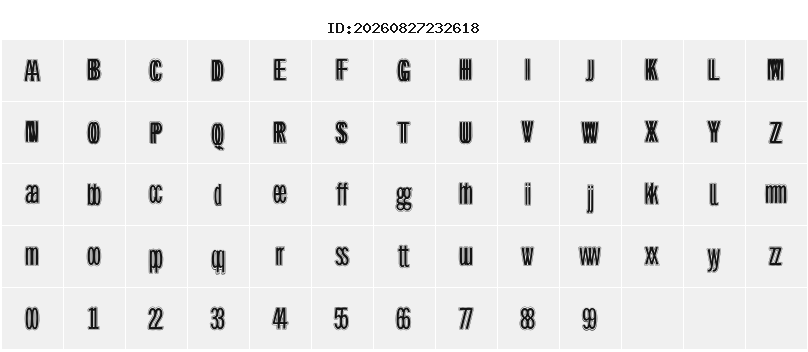
TwinSetSansTwo Preview
About TwinSetSansTwo.ttf
TwinSetSansTwo.ttf is a modern, elegant sans-serif font designed for ultimate readability and visual harmony. Perfect for branding, headlines, web design, and print materials.